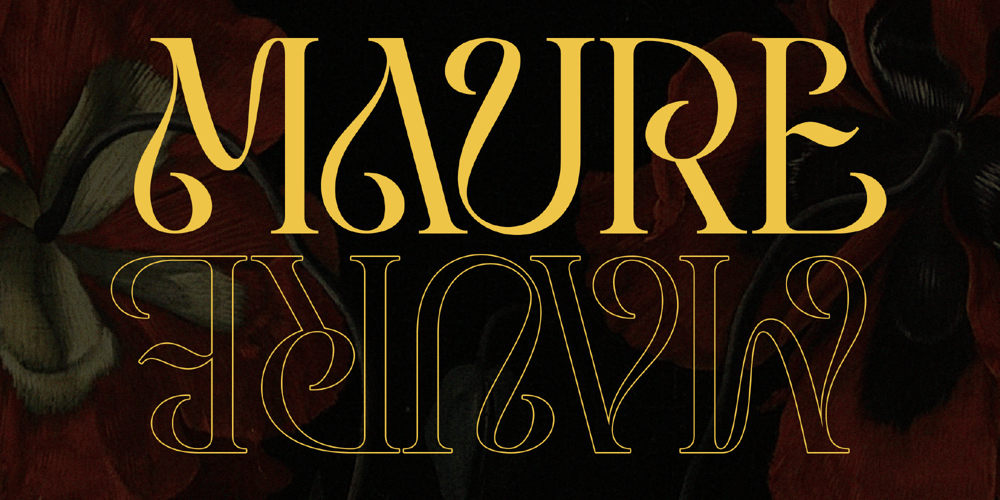
Maure Font Family was designed by Achmad Yani and published by Flawlessandco. Maure contains 1 styles and family package options. Introducing “Maure” – A Modern Display Font. Embrace the modern era of design with “Maure,” a sleek and contemporary display font that adds a touch of sophistication to your projects.There’s some connected letters and some alternates that suitable for any graphic designs such as branding materials, t-shirt, print, business cards, logo, poster, t-shirt, photography, quotes .etcThis font support for some multilingual. Also contains uppercase A-Z and lowercase a-z, alternate character, numbers 0-9, and some punctuation.If you need help, just write me! Thanks so much for checking out my shop!